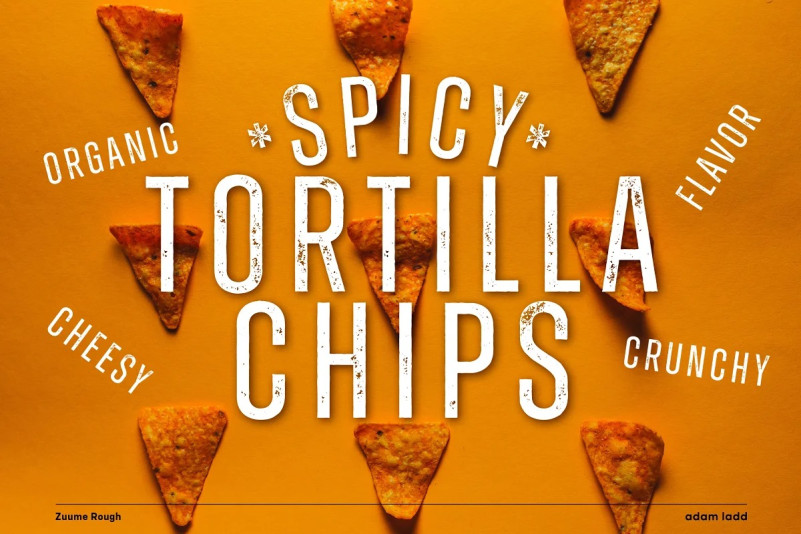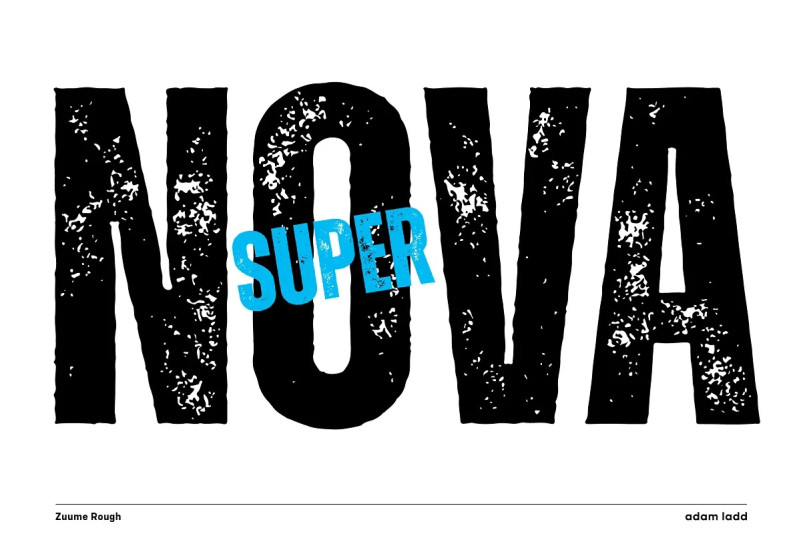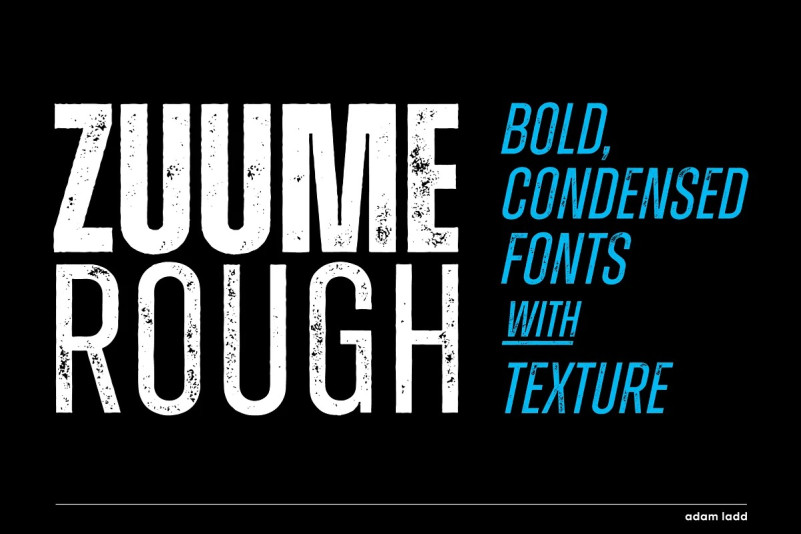
Zuume Rough Font
Zuume Rough Display Font is a textured, bold, condensed sans serif display font family. A sister to Zuume, this version features a rough printed texture for a more natural and raw look. Coming in regular and bold weights with italics, the fonts can be tightly spaced and stacked for a visual punch or spacing loosened for a little more breath.
A distinct characteristic of this all caps typeface is the notched and extended ink traps meant for both function and aesthetic interest. The strong and sturdy design makes it ideal for eye-catching headlines, branding, packaging, magazines, sports, logos, and more.
Also part of each font file are matching pre-designed catchwords that add interest to your typography. Stylistic alternates and arrow glyphs increase the options available as well.